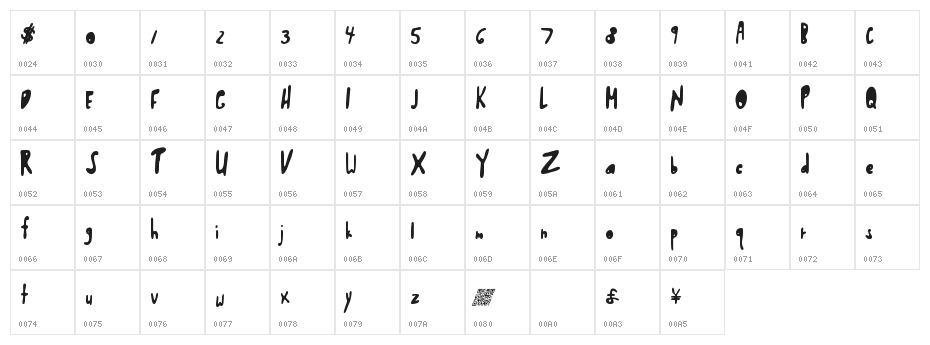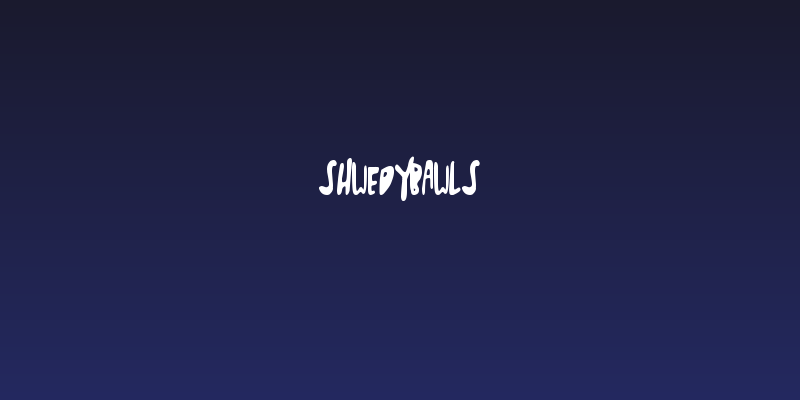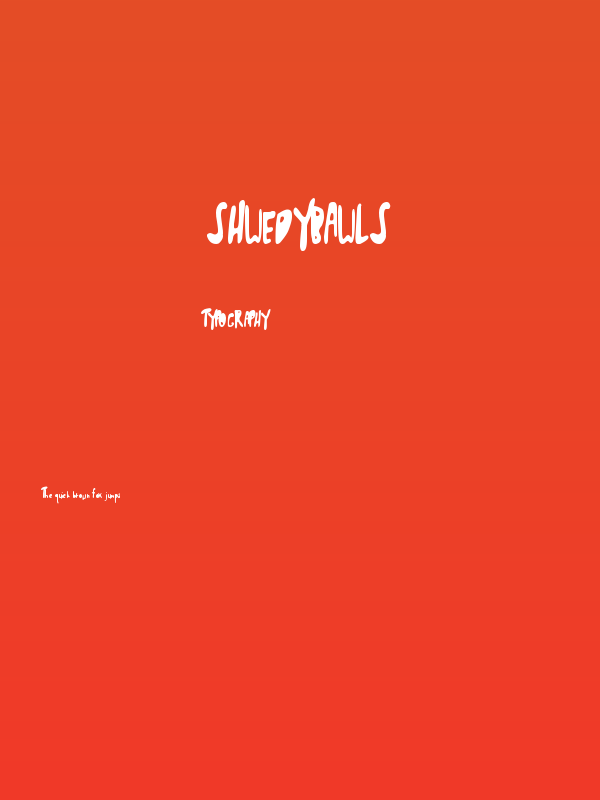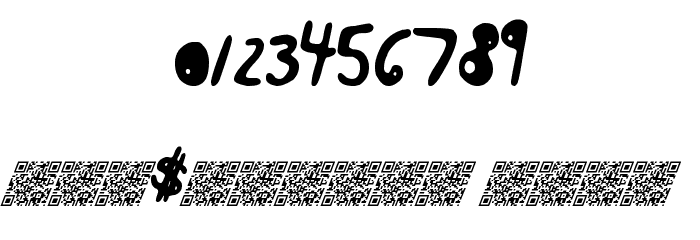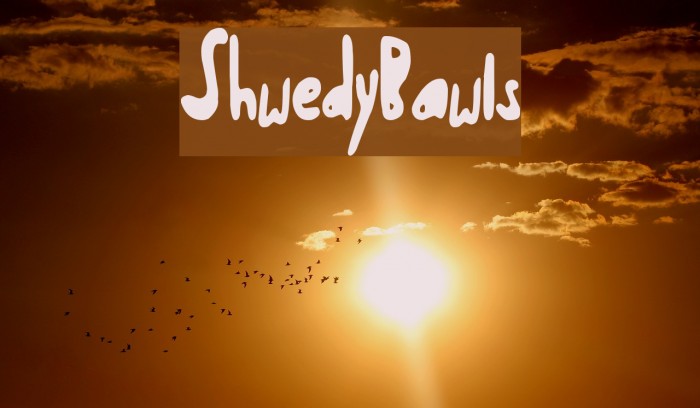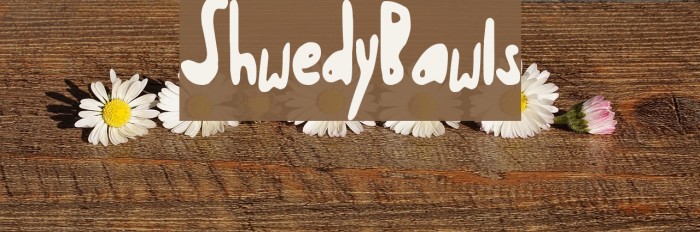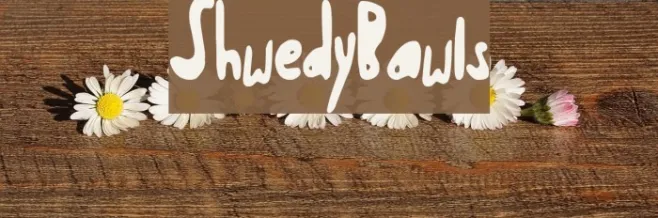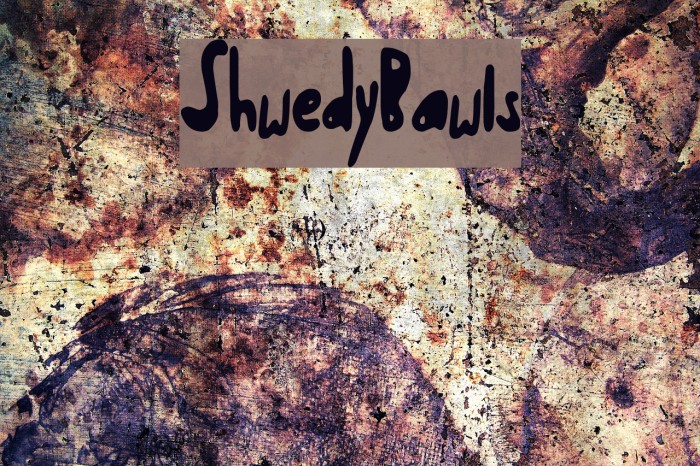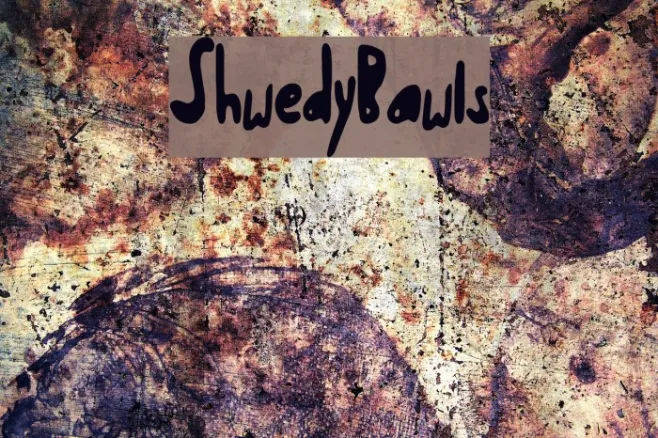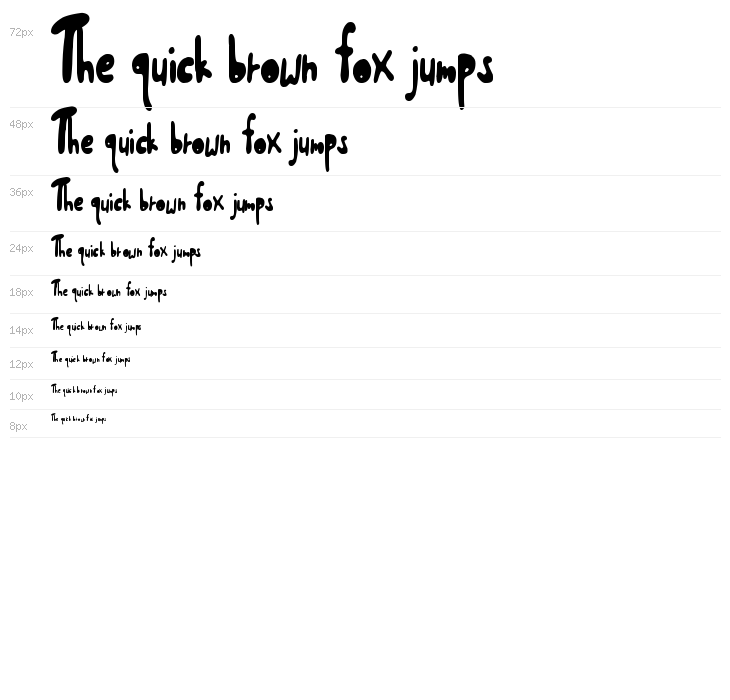
ShwedyBawls Font
ShwedyBawls Description
This playful and bold font features a unique, hand-drawn style with exaggerated curves and varying stroke widths. The uppercase letters are particularly striking, with a whimsical, almost cartoonish appearance that adds a sense of fun and creativity. The lowercase letters maintain this playful aesthetic, with a slightly more subdued but still dynamic form. The numbers and special characters follow suit, offering a cohesive look across all characters. This font's irregular shapes and lively personality make it stand out, perfect for projects that require a touch of humor and individuality.